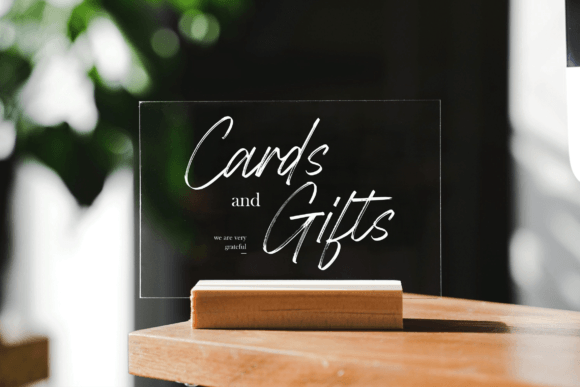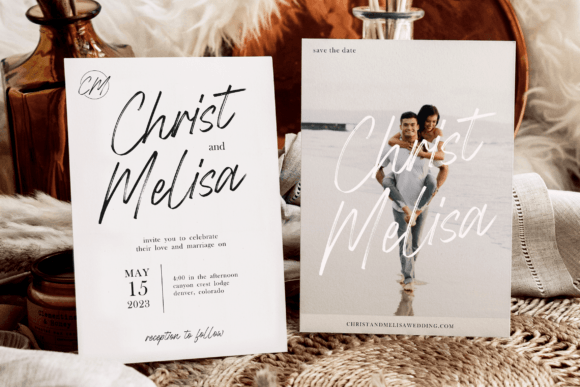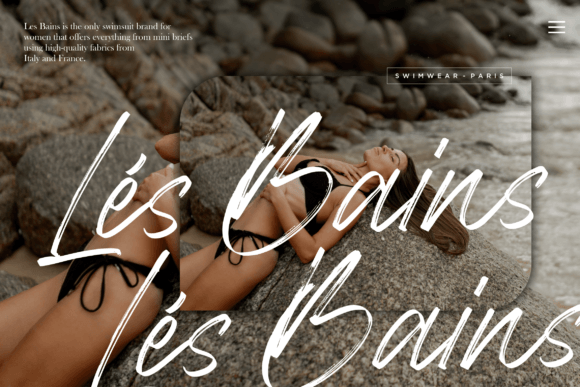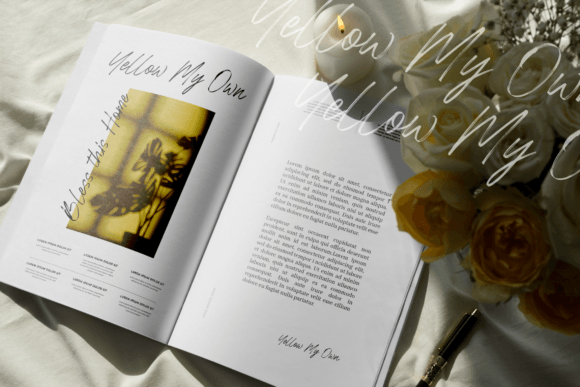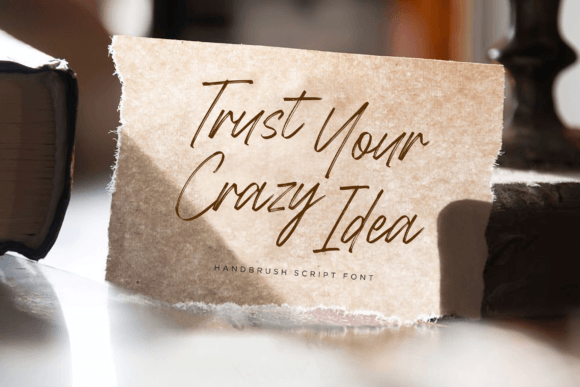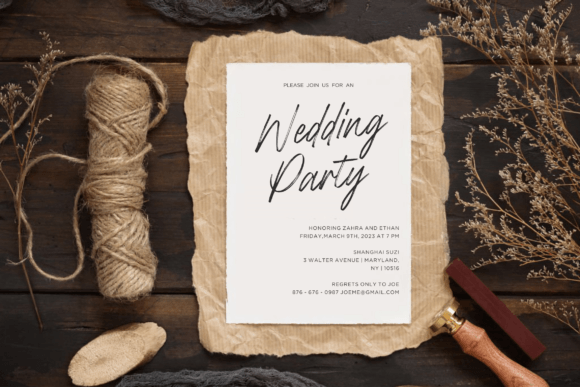
Introduction to Baltiholm Font
Baltiholm is a trendy and cool handwritten font perfect for your favorite projects.
It has beautiful and well-balanced characters and as a result, it matches a wide pool of designs .